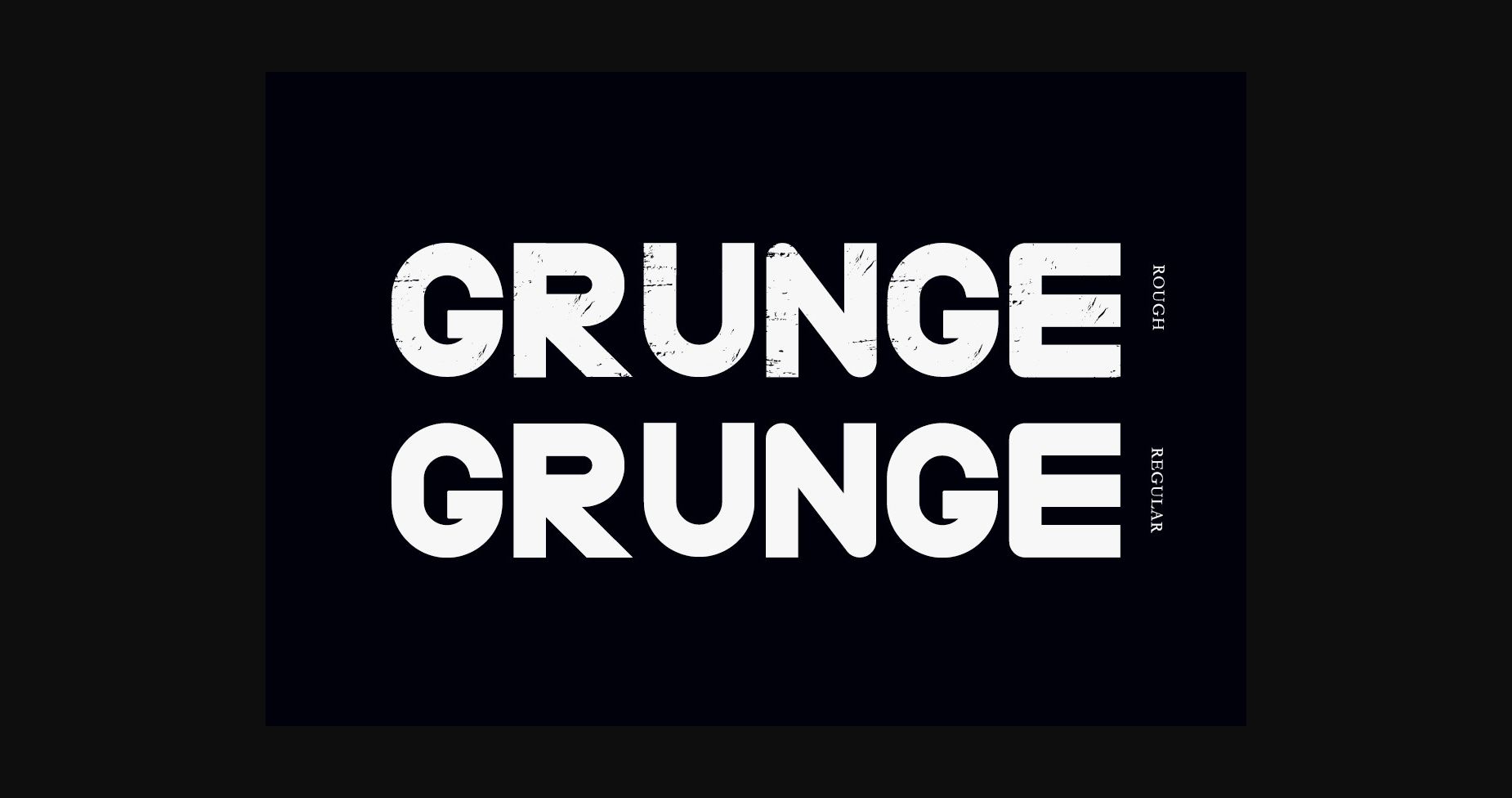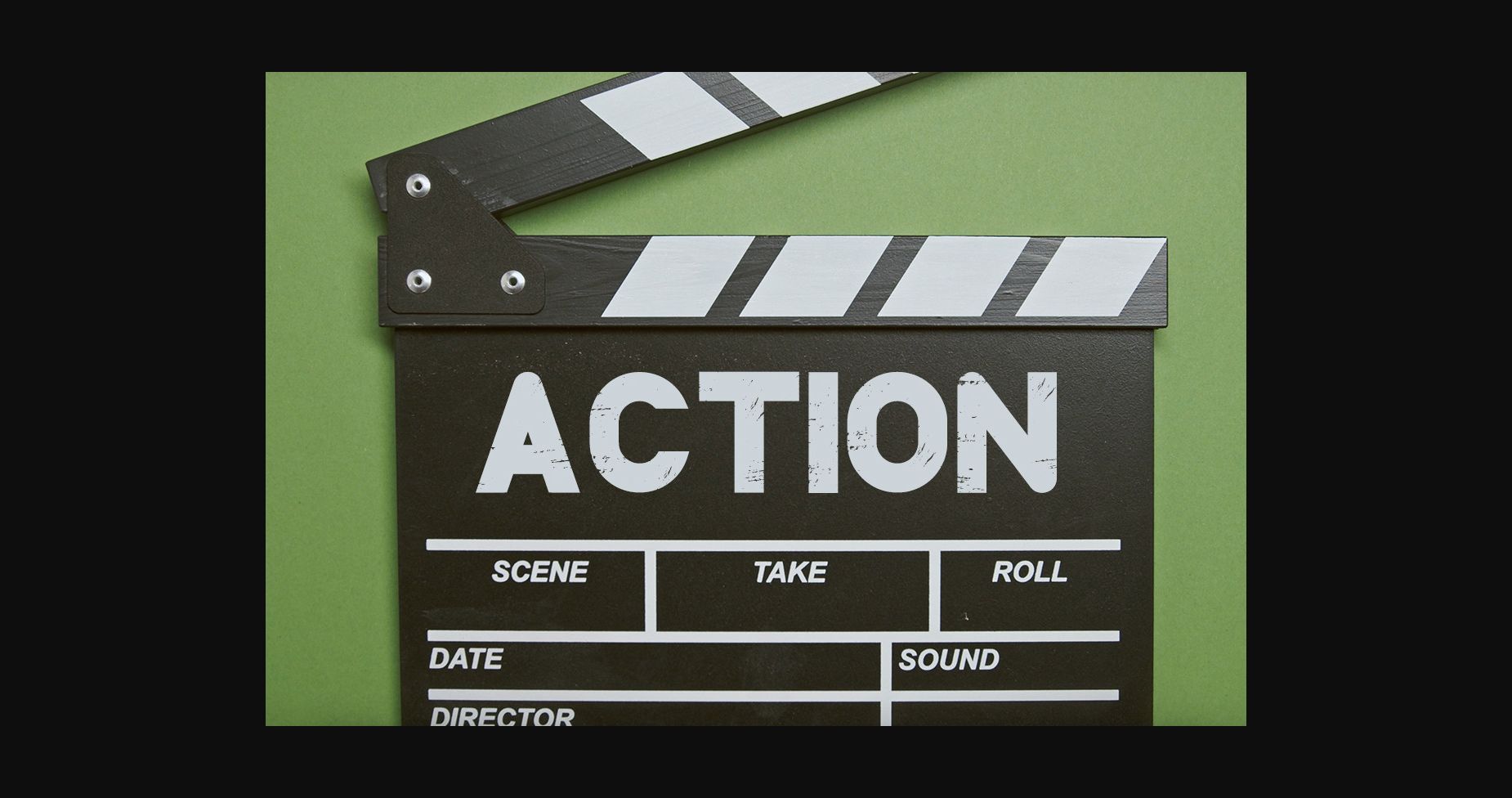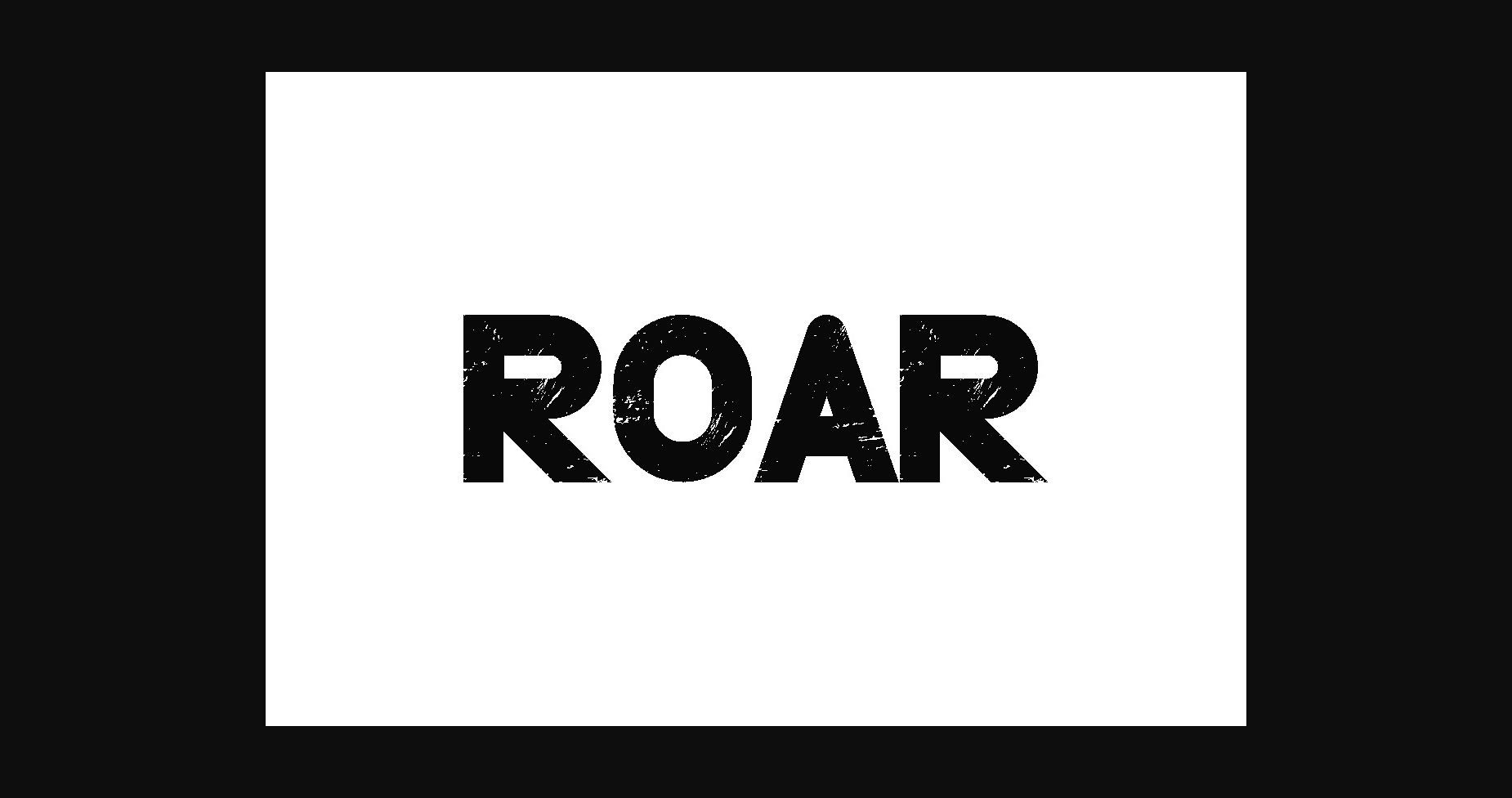
About Grunge Font
Grunge is a thick and simple sans serif font. It can easily be matched to an incredibly large set of projects, so add it to your creative ideas and notice how it makes them stand out!